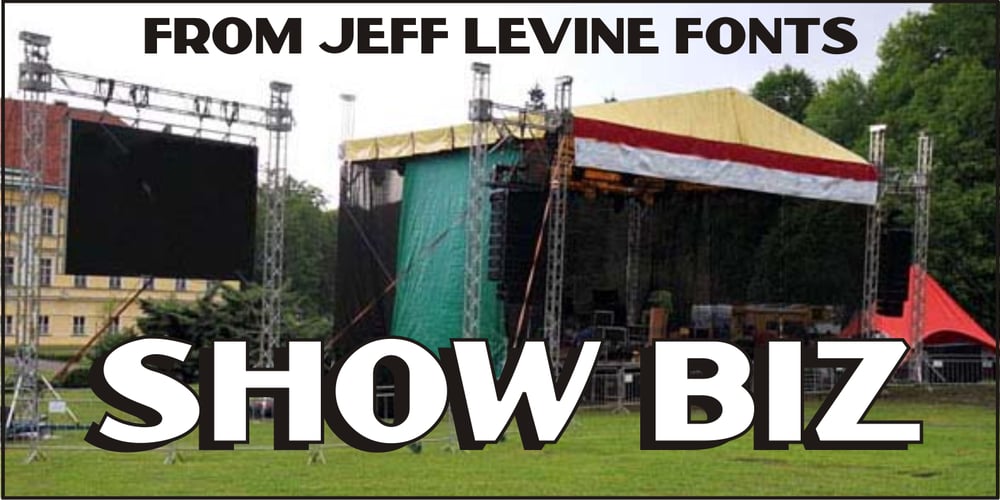
Show Biz JNL Font Family was designed by Jeff Levine and published by Jeff Levine. Show Biz JNL contains 1 styles and family package options. The lettering style of Show Biz JNL is a classic sanserif with Art Deco influences. Slight variations in some letter shapes set it off from similar releases. The basic inspiration for this font was a set of ceramic letters and numbers used for home movie titling, but a few touches were added to give the font its own style and flavor.